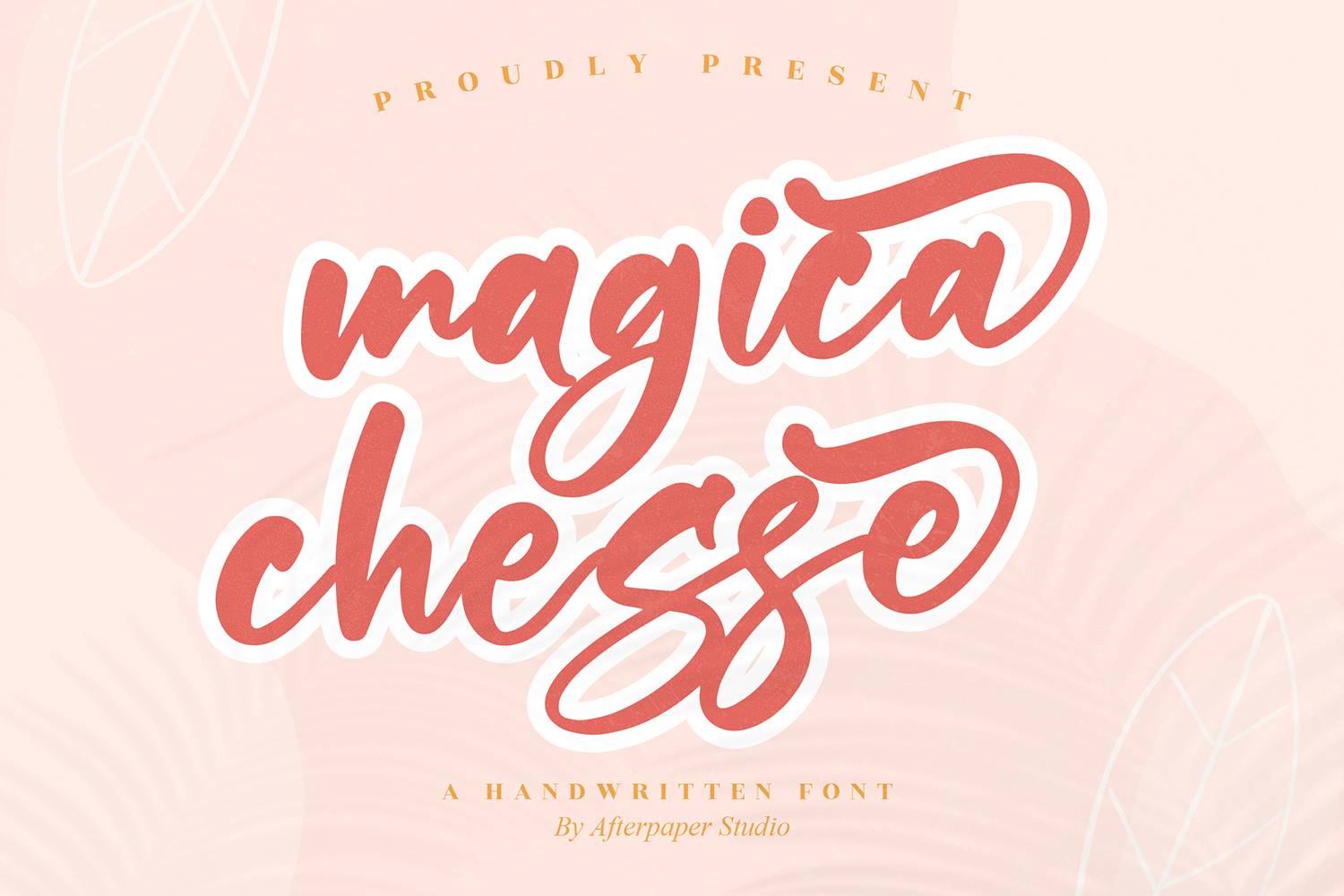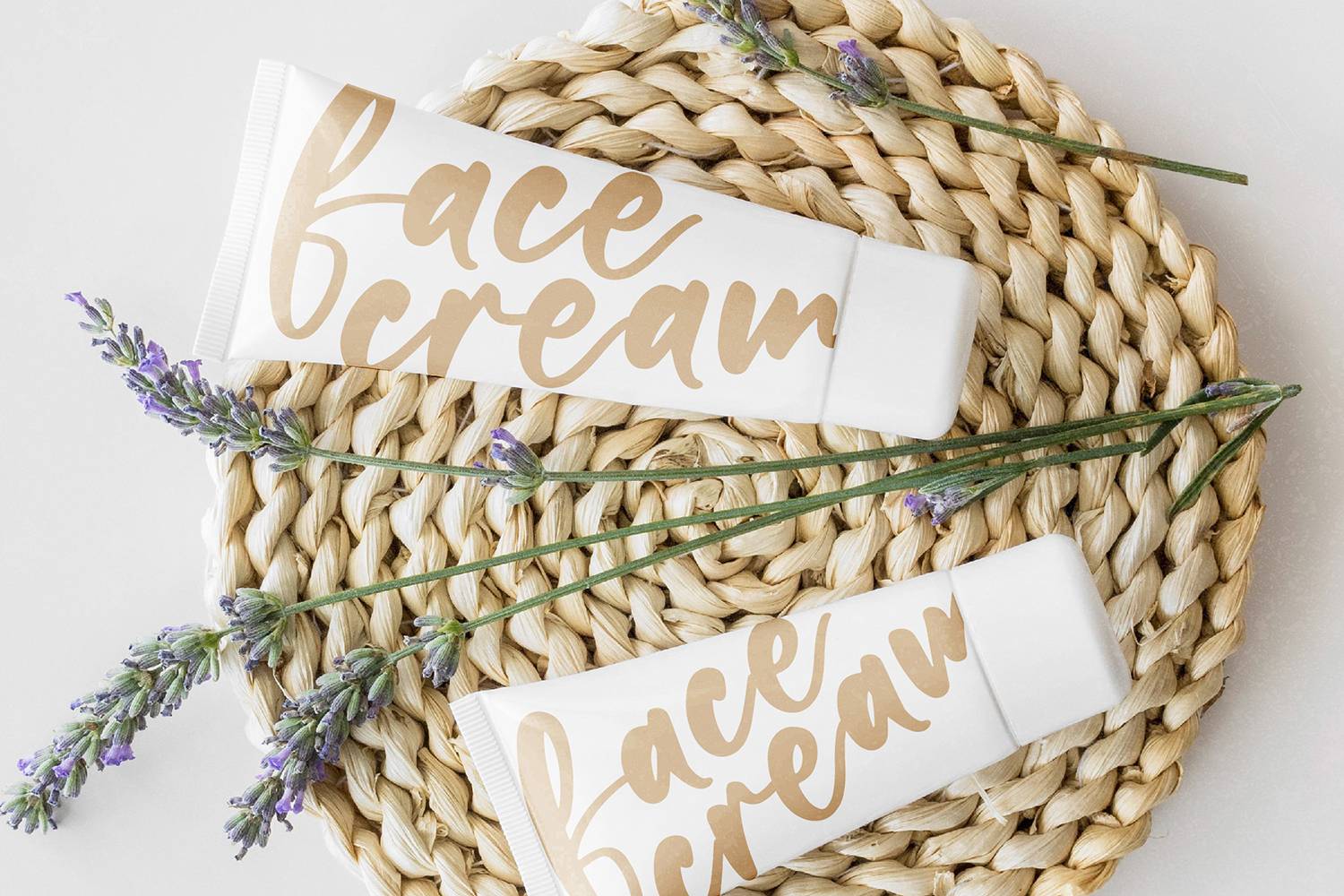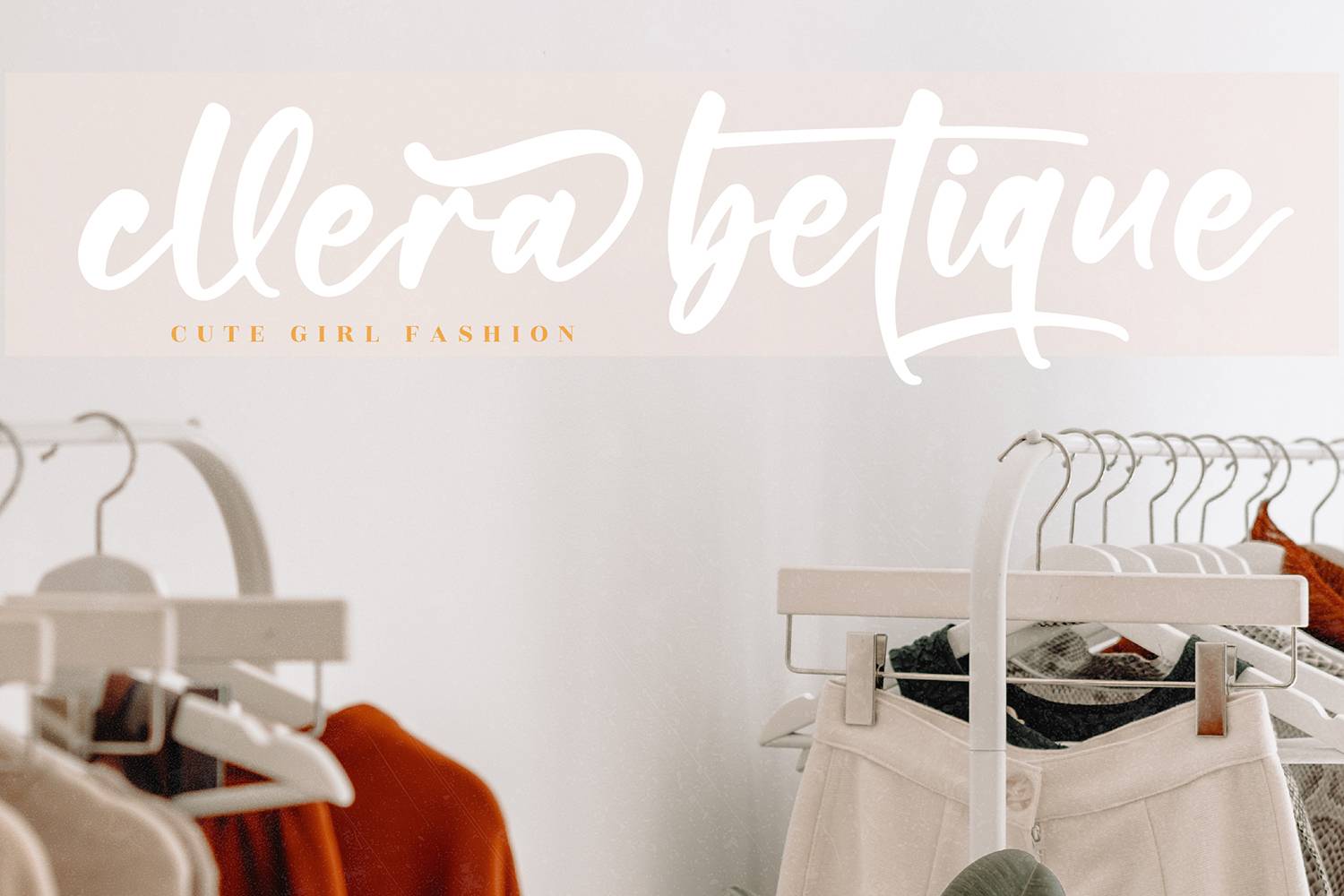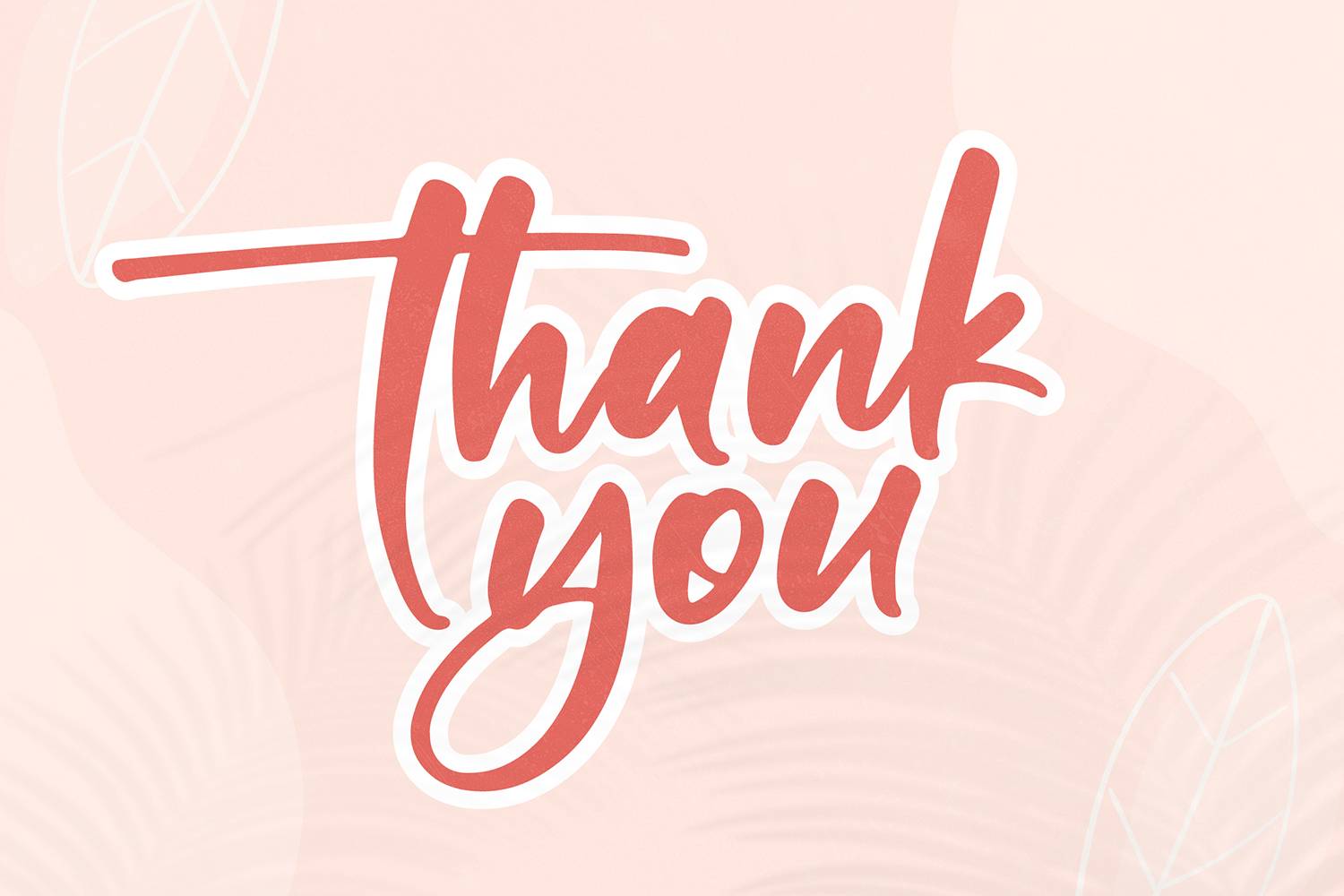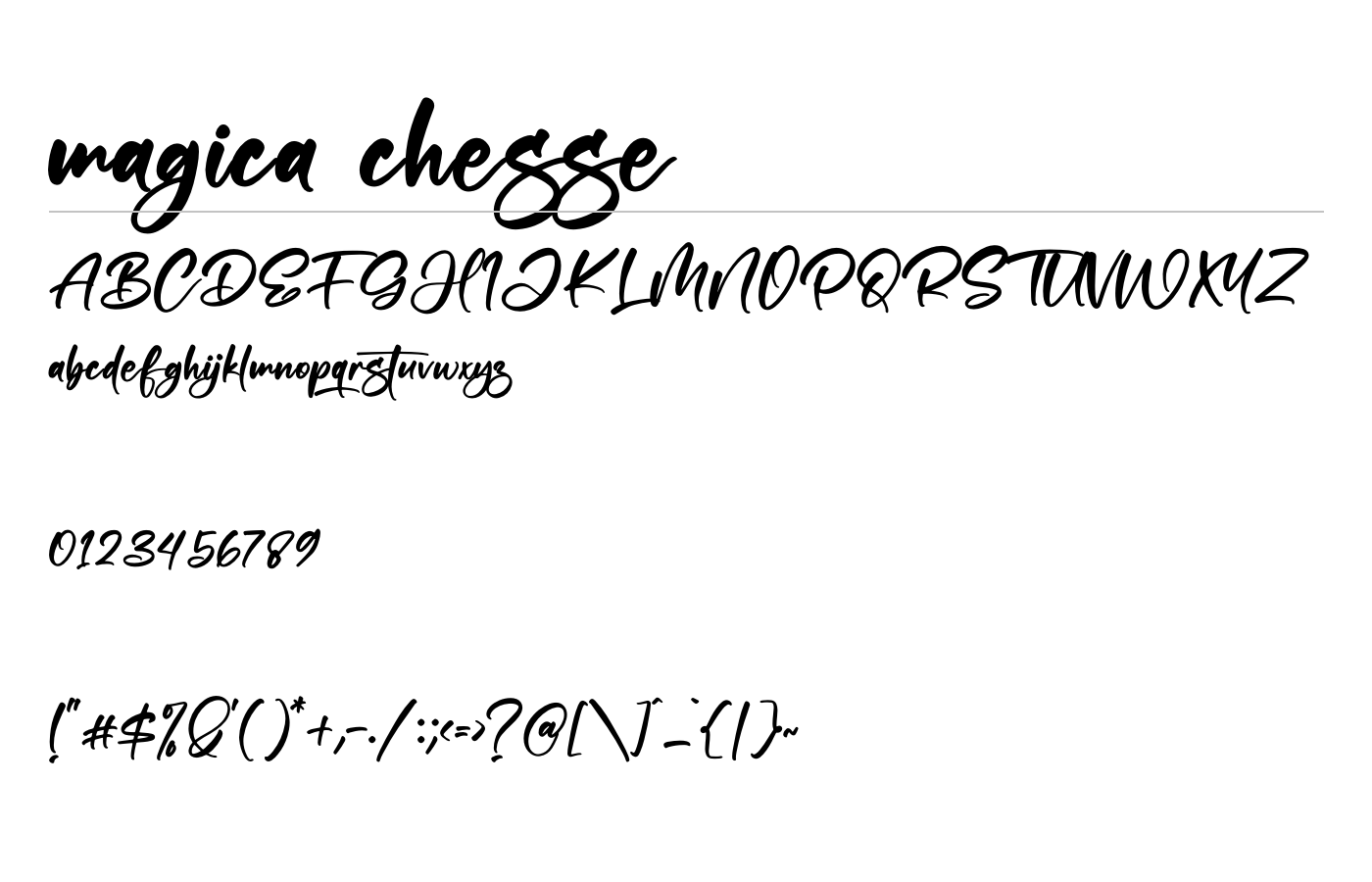
Magica Chesse is a lively, brush-style script font that combines bold, flowing strokes with a playful, handwritten charm. Its smooth, slightly condensed letterforms and unique character shapes create a personal and energetic feel, making it perfect for creative branding, invitations, and eye-catching headlines. This font works well in designs that want to convey warmth, creativity, and a friendly, informal vibe.
Magica Chesse Font
About Magica Chesse Font